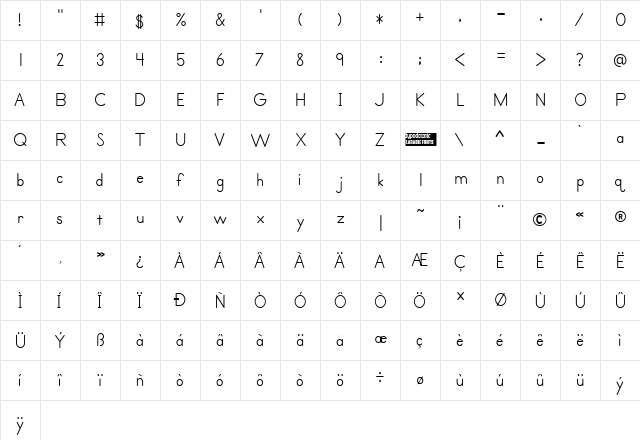
Primer Print Regular
Design Context for Primer Print Typeface
Primer Print takes a measured approach to typography — its balanced proportions and neutral character make it a reliable workhorse for both digital and print work.